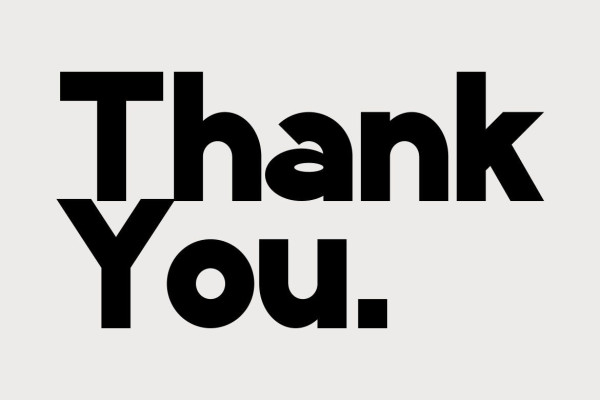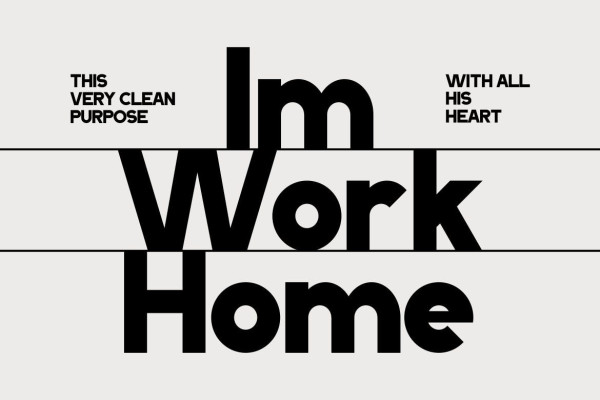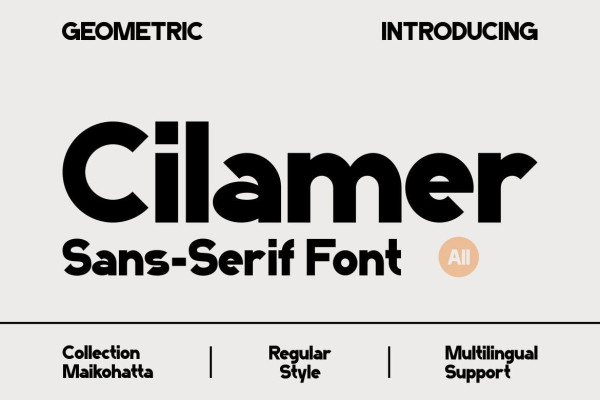
Cilamer Font
Cilamer Font – Modern Font is a bold and authentic display font. The font is suitable for any branding project such as logo, Template design, esports, etc. She is exceptional in a wide range of contexts